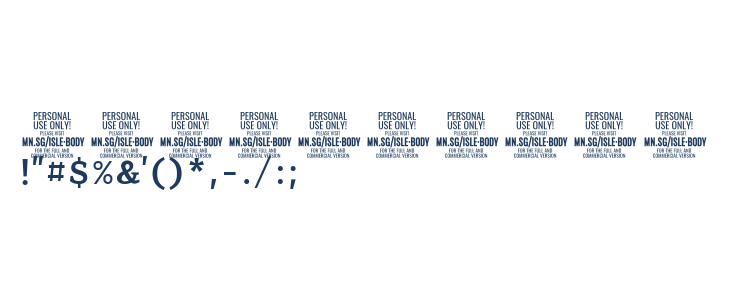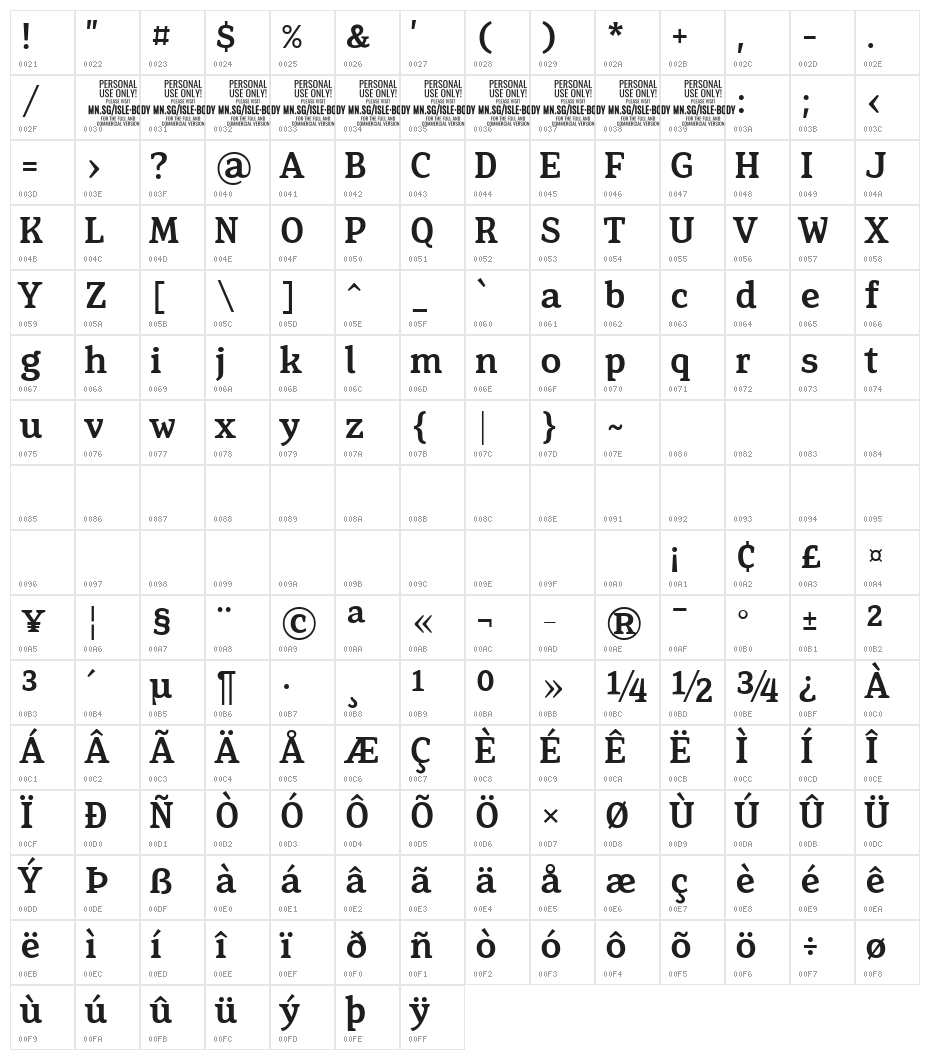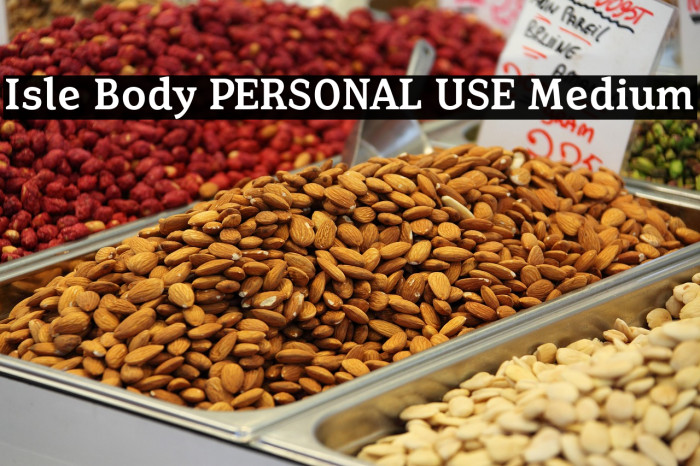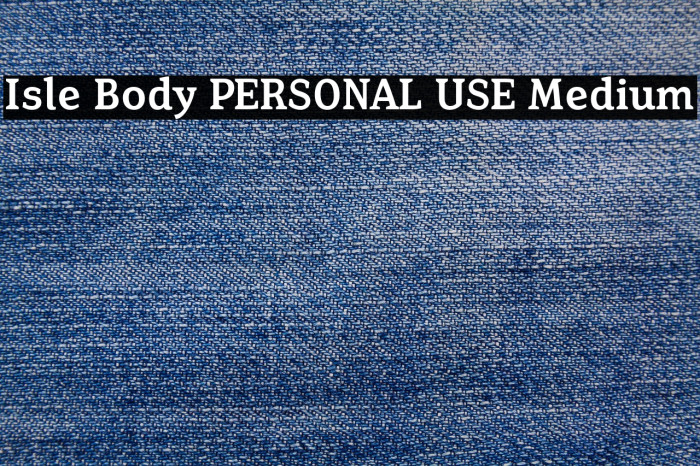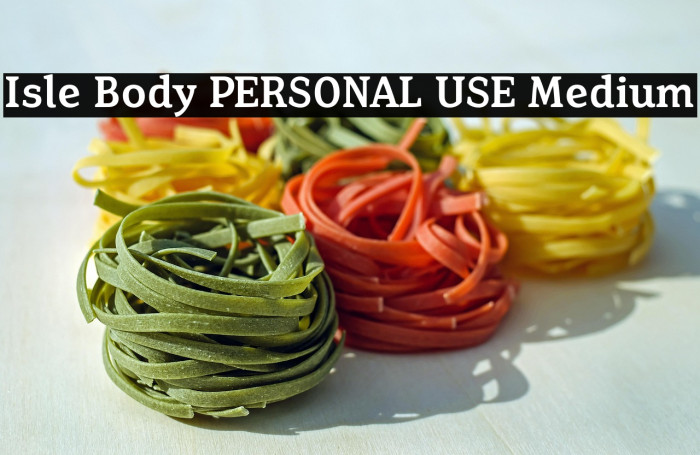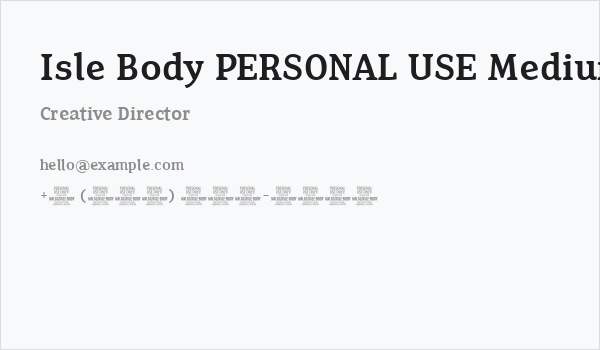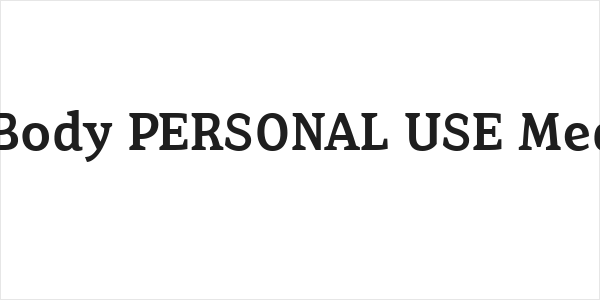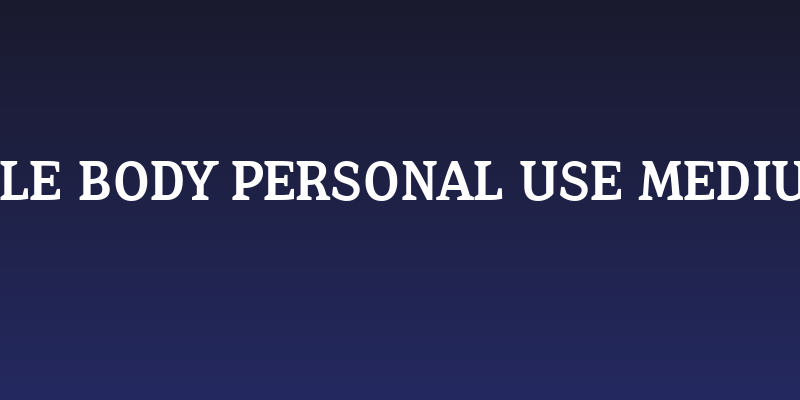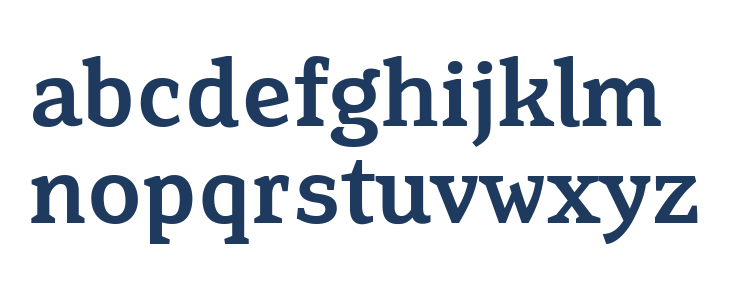
Isle Body PERSONAL USE Medium Font
Isle Body PERSONAL USE Medium Description
This font features a bold and robust serif design, characterized by its strong and pronounced strokes. The uppercase letters exhibit a classic and authoritative presence, while the lowercase letters maintain a harmonious balance with slightly rounded edges. The numerals are clear and easily distinguishable, complementing the overall traditional aesthetic. Special characters are well-integrated, maintaining consistency with the font's bold style. The font's structure is ideal for conveying a sense of reliability and professionalism, making it suitable for a variety of formal applications.
| Use Case | Headlines, Logos, Editorials |
| Proposed Projects | Ideal for book covers, editorial headlines, branding materials, and formal invitations. |